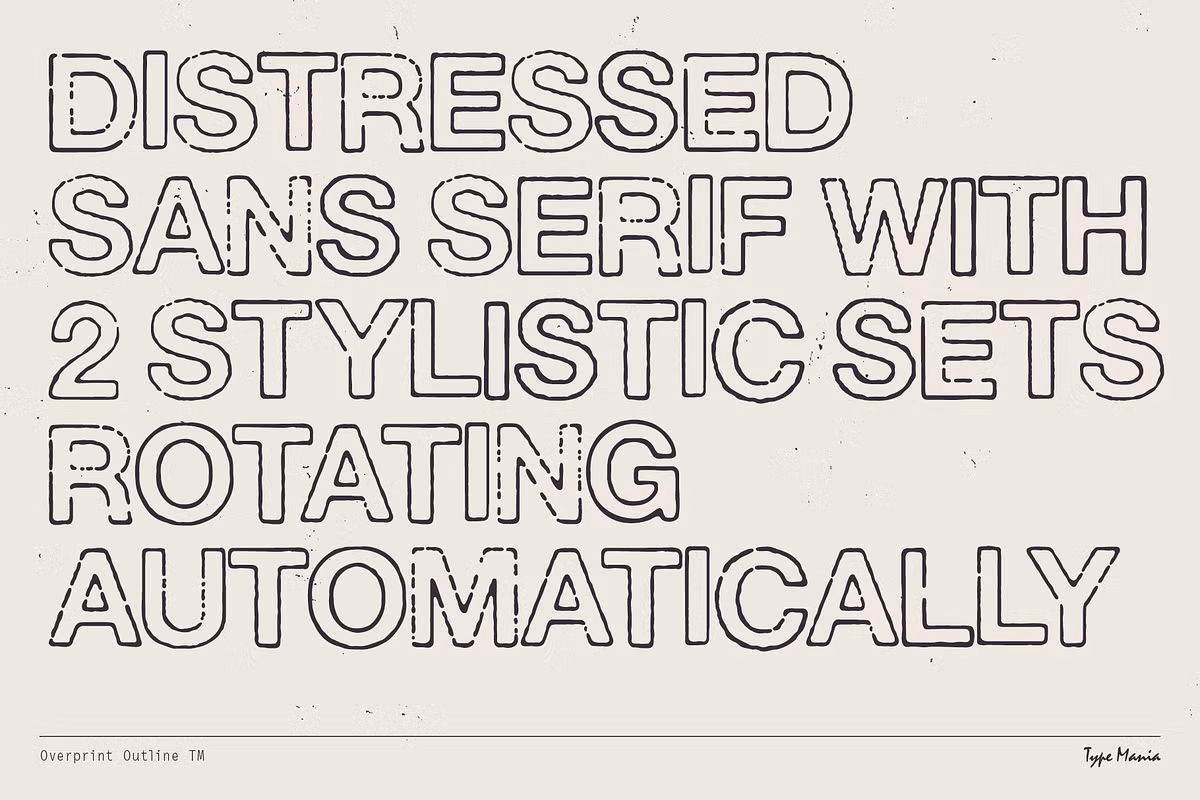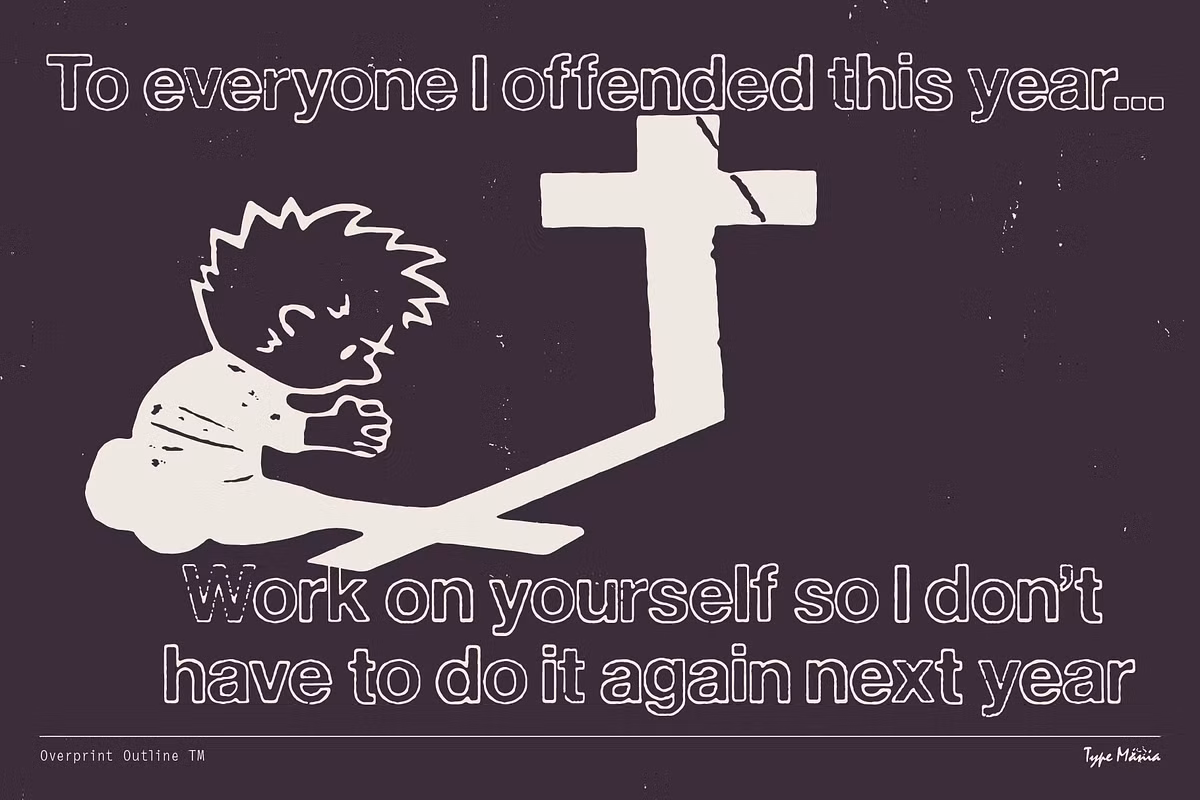
Overprint Outline TM: Distressed Grungy Sans Typeface for Design
Introducing Overprint Outline TM
Overprint Outline TM is a font. Overprint Outline TM has the edges and a xeroxed look. Overprint Outline TM is a sans serif font. Overprint Outline TM works well when you want the grungy look for your design work. Overprint Outline TM adds a personality and a few flaws to your typography. When you choose Overprint Outline TM you can give a project the edge without having to add effects. Overprint Outline TM can show the sense of defiance and a real feel, in your designs.
The design of the Overprint Outline TM stands out in typography. The distressed look comes from shaping of each letter, in the Overprint Outline TM. The shaping gives the Overprint Outline TM a feel that copies the flaws you see in hand drawn or printed type. The uneven edges give the Overprint Outline TM a look. The raw look makes the Overprint Outline TM good, for design jobs from posters and album covers to branding and web design. When I see the Overprint Outline TM I think of printed signs.
One of the features of Overprint Outline TM is the stylistic sets. The stylistic sets rotate automatically when contextual alternates are turned on. The stylistic sets create changes, in the shape of each character across words. The stylistic sets keep the text from looking the same in any two places. The stylistic sets work well. I find the sets useful, for designers who want a more lively visual look.
If you are designing for a music festival, a streetwear brand or any project that needs the look Overprint Outline TM can improve your work with Overprint Outline TM style. I have tried Overprint Outline TM on my work. Overprint Outline TM makes the design pop.
Character Sets and Language Support
Overprint Outline TM supports a range of character sets making Overprint Outline TM versatile, for design needs. Overprint Outline TM includes Basic Latin, Western European, Euro Central Pan Latin character sets. Overprint Outline TM works well. Overprint Outline TM provides the designers with language support that lets the designers use Overprint Outline TM, in contexts while keeping the text readable and appealing across languages.
The versatility of Overprint Outline TM matters a lot for brands and projects that target audiences. With Overprint Outline TM I can add typography to my designs. I know the unique typography will keep the look even when the language changes.
Use Cases for Overprint Outline TM
I find the look of Overprint Outline TM fits projects. I have used Overprint Outline TM, in the posters album covers, street art and more. Here are some use cases where Overprint Outline TM works well:
- Music Album Covers: I have used Overprint Outline TM, on album covers and Overprint Outline TM has the look that works for the album artwork in punk, rock and indie. Overprint Outline TM brings the authentic vibe that punk, rock and indie need. Overprint Outline TM feels right, for punk, rock and indie.
- Posters and Flyers: The typeface grabs attention. The typeface works for events for promotions for expression. The typeface communicates a message, with a flair.
- Branding: Brands that want a rebellious or urban look can use Overprint Outline TM, in the logo and marketing material. Brands can make a lasting impression, on the audience. Brands can stand out with Overprint Outline TM.
- Web Design: I notice that adding Overprint Outline TM to the web design creates an eye catching element. Overprint Outline TM improves the user experience. Pulls visitors in.
Overprint Outline TM works for any project. Overprint Outline TM is a tool, for the designers who want to make different and easy to remember typography. Overprint Outline TM lets the designers shape type that stands out.
When you work with Overprint Outline TM you need to think about font pairings that match the style of Overprint Outline TM. Here are a suggestions to improve your designs:
- With Clean Sans-Serifs: I pair Overprint Outline TM, with a clean sans-serif font such as Helvetica or Arial. The clean sans-serif font creates a contrast, with Overprint Outline TM. The smooth lines of the clean sans-serif font balance the look of Overprint Outline TM. The result makes the design feel more clean.
- With Serif Fonts: Using a classic serif font like Times New Roman or Georgia can add an element of sophistication to your design while maintaining an edgy vibe. This pairing works well in editorial designs or invitations.
- With Script Fonts: For a more playful and artistic approach, combining Overprint Outline TM with a casual script font can create a fun and inviting atmosphere, suitable for creative projects and social media graphics.
In the end Overprint Outline TM is more, than a font. Overprint Outline TM works as a tool that can change your design projects. The distressed grungy style gives a look that fits design trends. Overprint Outline TM also gives the flexibility needed for uses. Overprint Outline TM includes style sets and support for languages. I have used Overprint Outline TM. I see that Overprint Outline TM helps designers make a look. Overprint Outline TM is an option, for designers who want to stand out. If you are making the brand identity or the poster Overprint Outline TM adds character and individuality to the work. I have used Overprint Outline TM on my projects. Overprint Outline TM makes the work feel different.